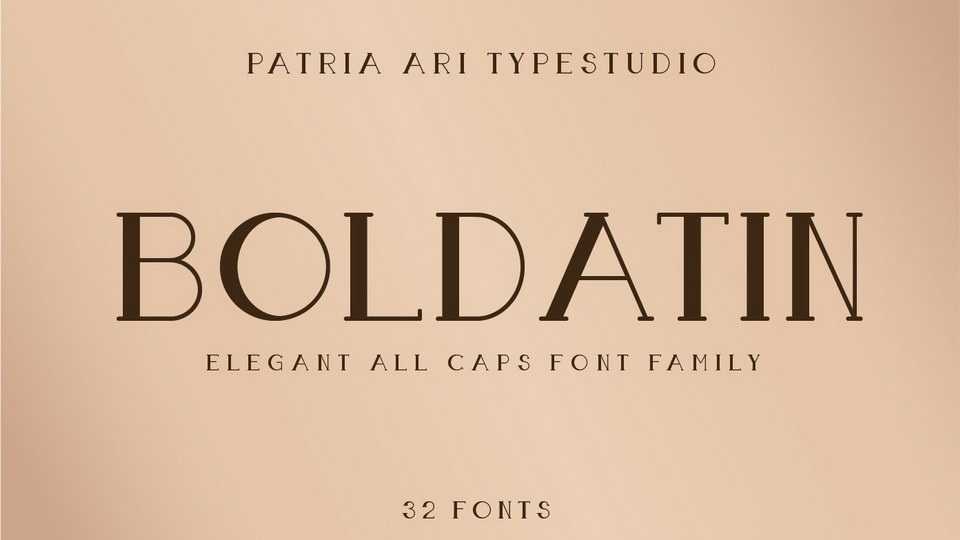
Download Boldatin font, a high contrast slab serif typeface with an elegant and fancy look. Boldatin is suitable for your project like signage, poster, banner, flyer, etc.